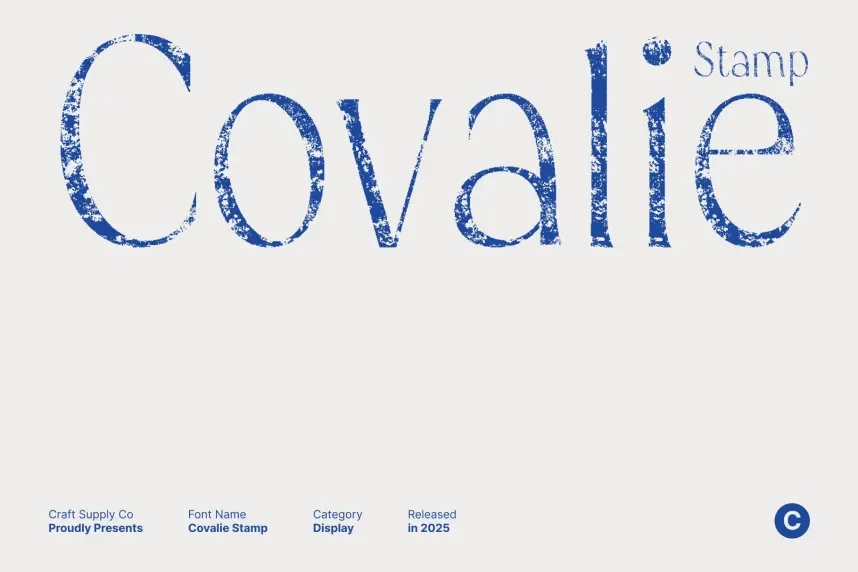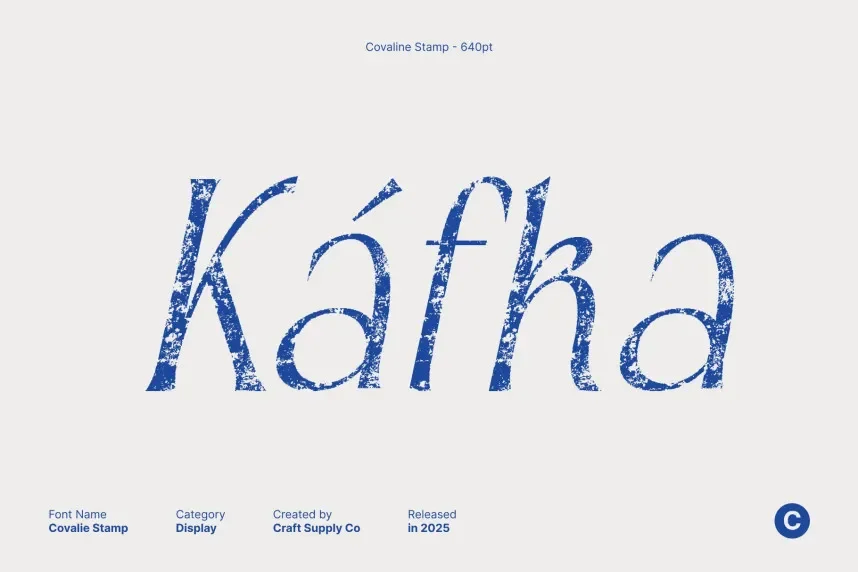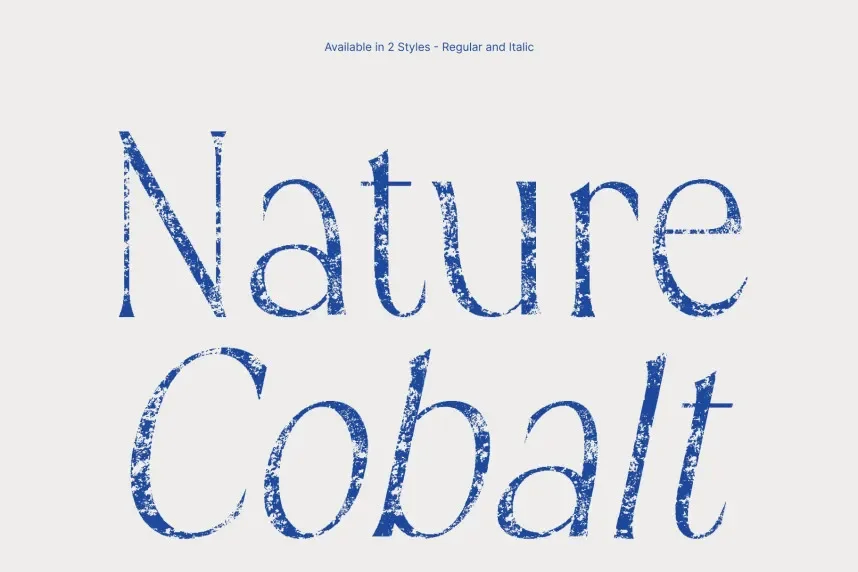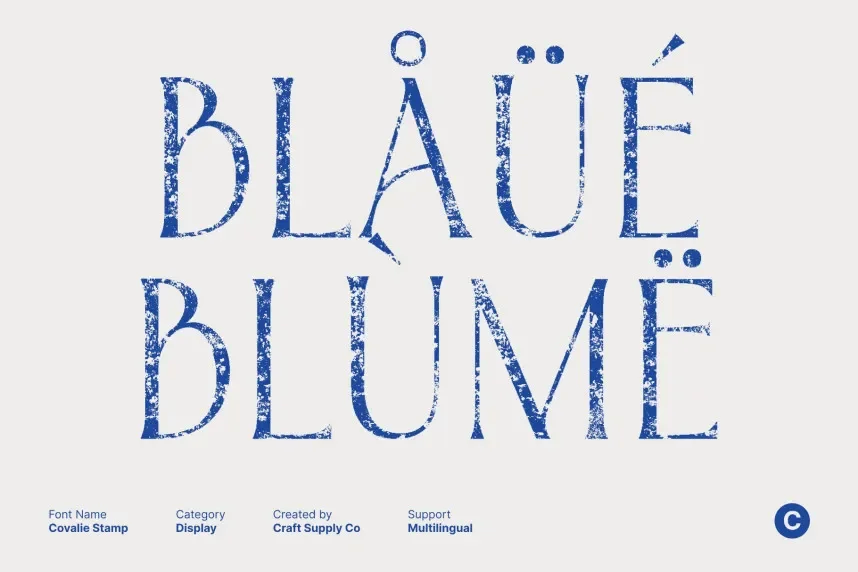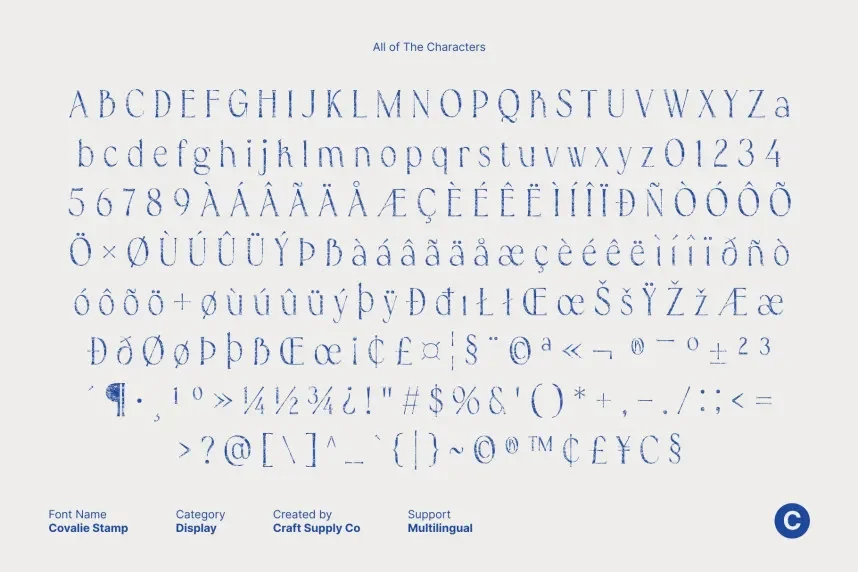
Covalie Stamp Font is a bold, display typeface with a unique, hand-stamped look. The font’s rough edges and uneven texture make it perfect for designs that need a rustic or vintage appeal, such as branding, product packaging, and event promotions.